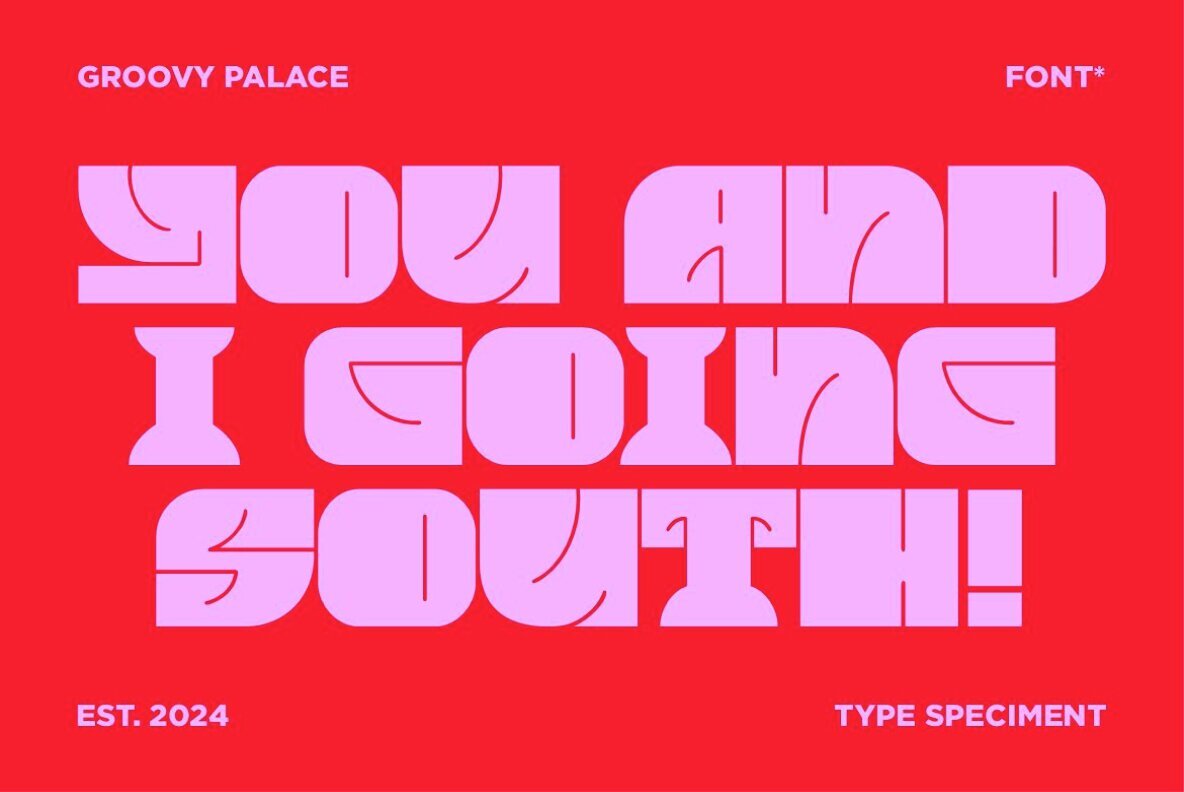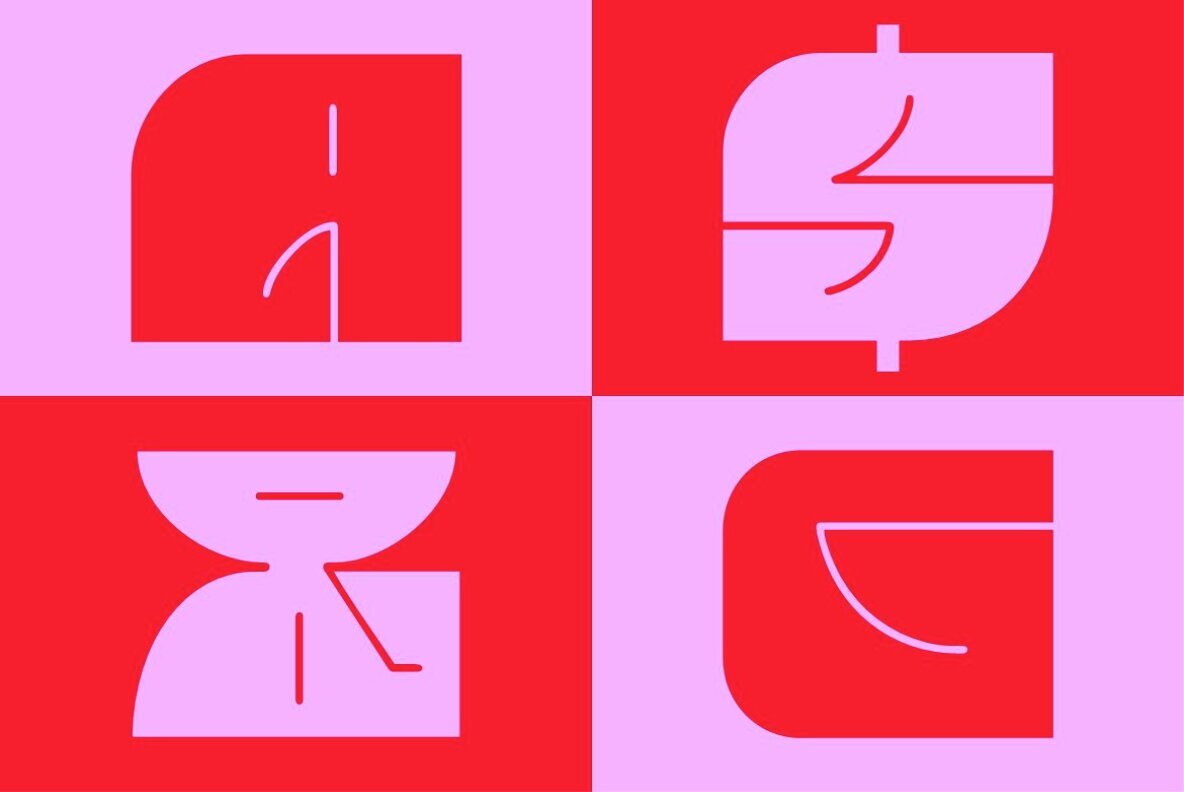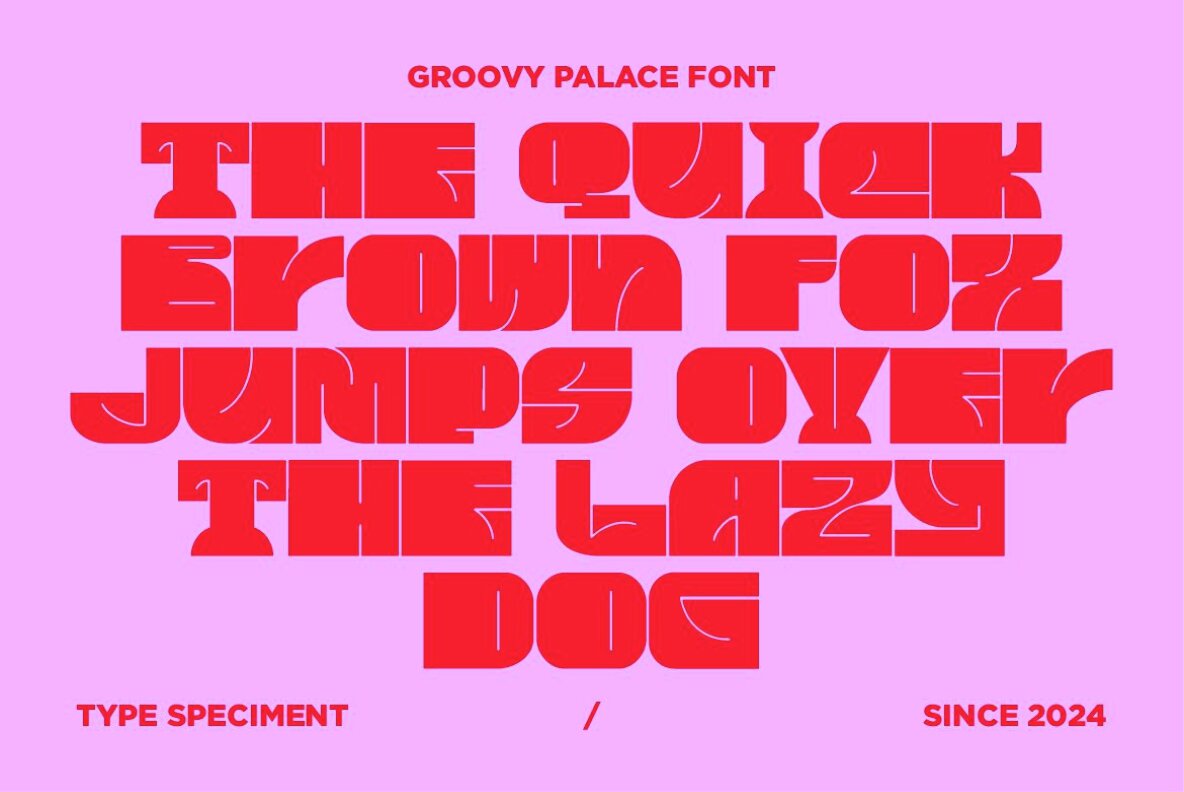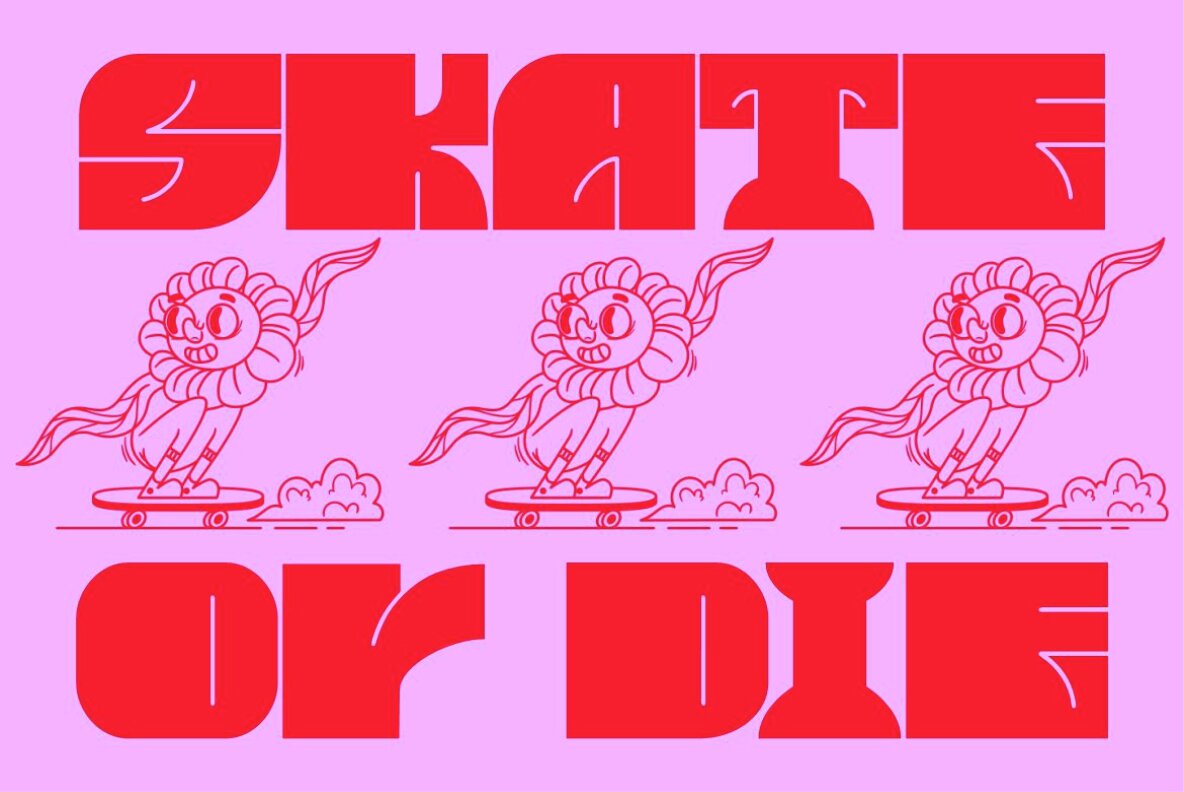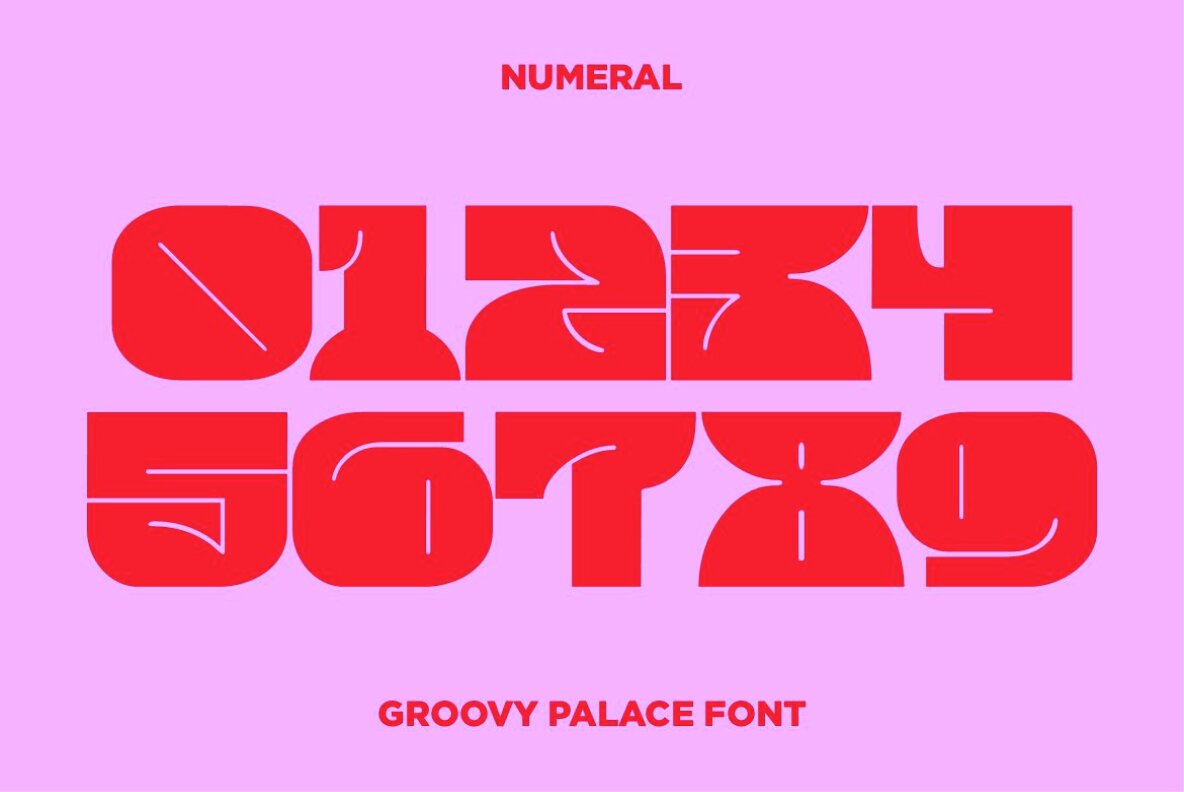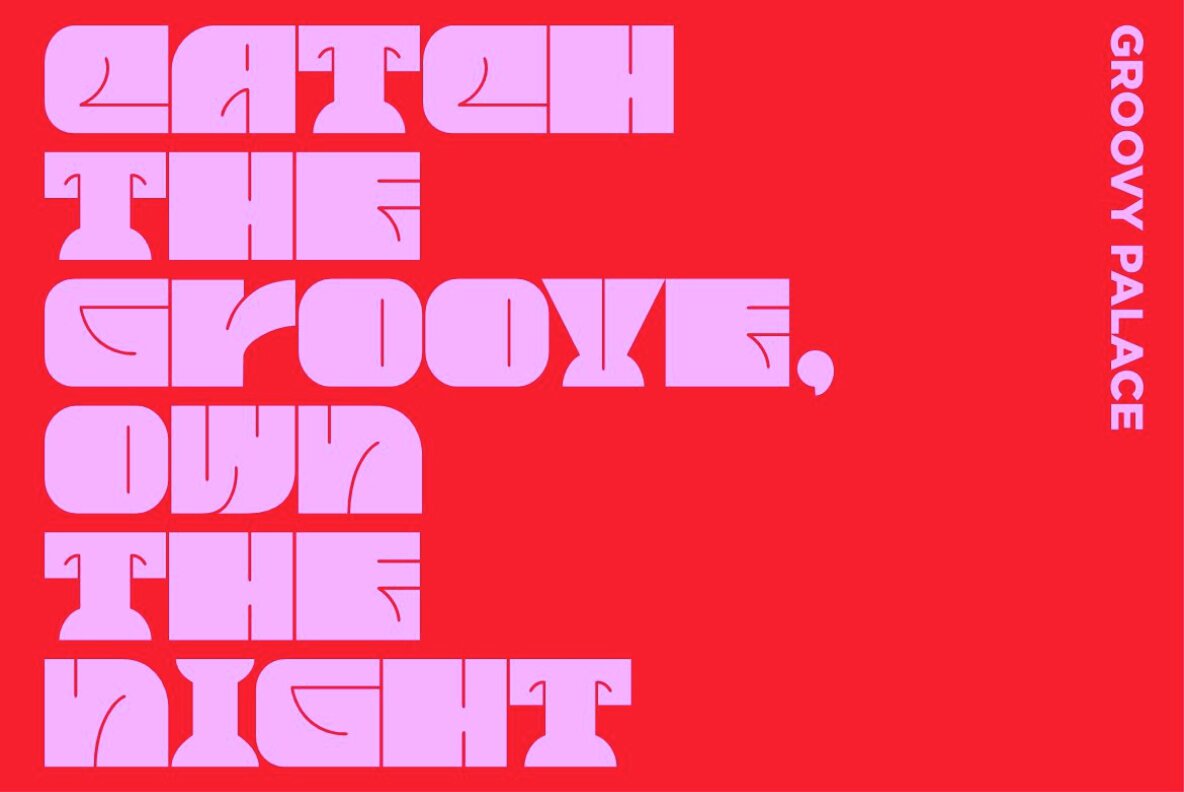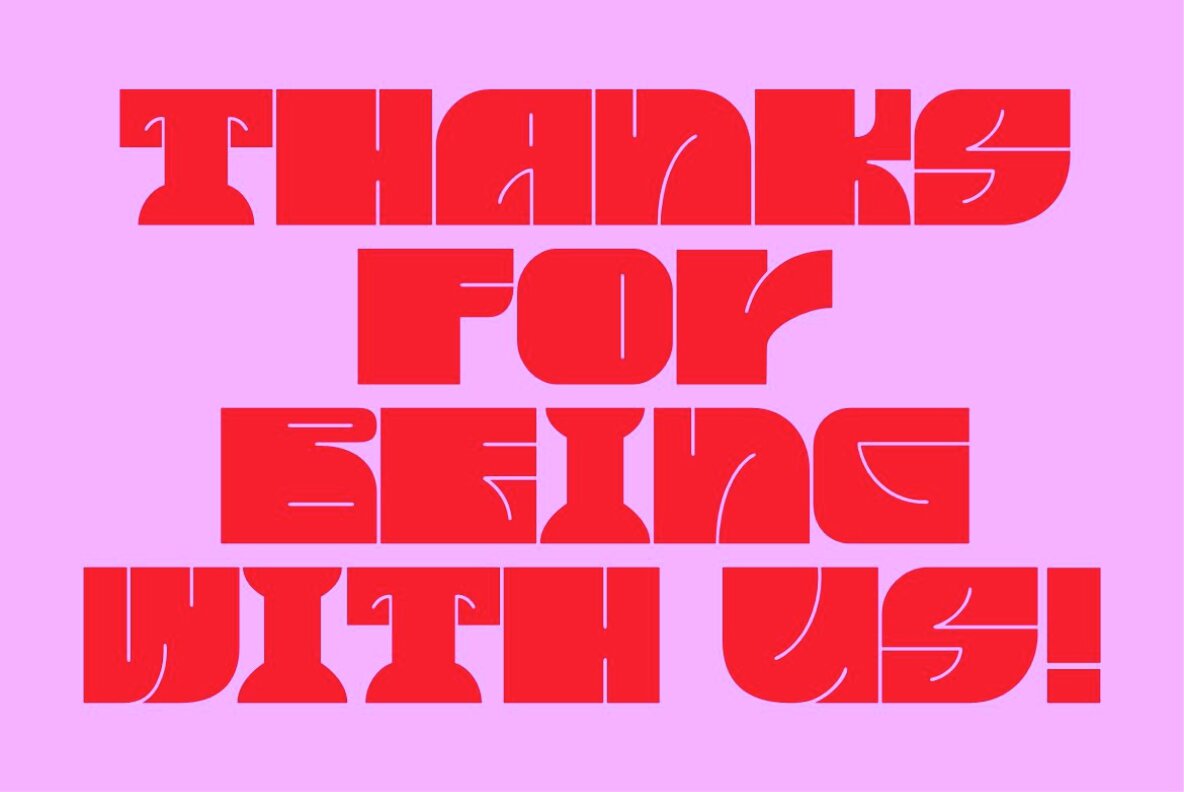
Groovy Palace Font
Groovy Palace Regular
Groovy Palace is an edgy display font that combines elements of geometric precision with bold curves. Its unique design is characterized by the use of squares and lines to form the distinctive shapes of the letters, creating a modern and dynamic appearance that is perfect for eye-catching headings and titles.